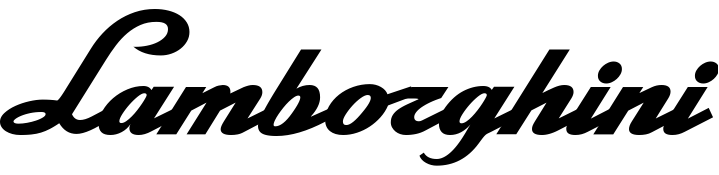
Lamborghini Font
AutomobileLamborghini is an Italian sports car manufacturer based in Sant'Agata Bolognese and founded in 1963 by Ferruccio Lamborghini. The company is owned by the Volkswagen Group through its subsidiary Audi. A fighting bull with the word LAMBORGHINI on top makes up the Lamborghini logo. The bull is thought to represent Taurus, the zodiac sign of Ferruccio Lamborghini.
The Lamborghini wordmark is written in calligraphy and is displayed above the company's logo on the back of its vehicles. The font used in its wordmark is remarkably similar to a font called La Macchina created by Michael Hageman. The font is free to download in the Fonts Used Section.